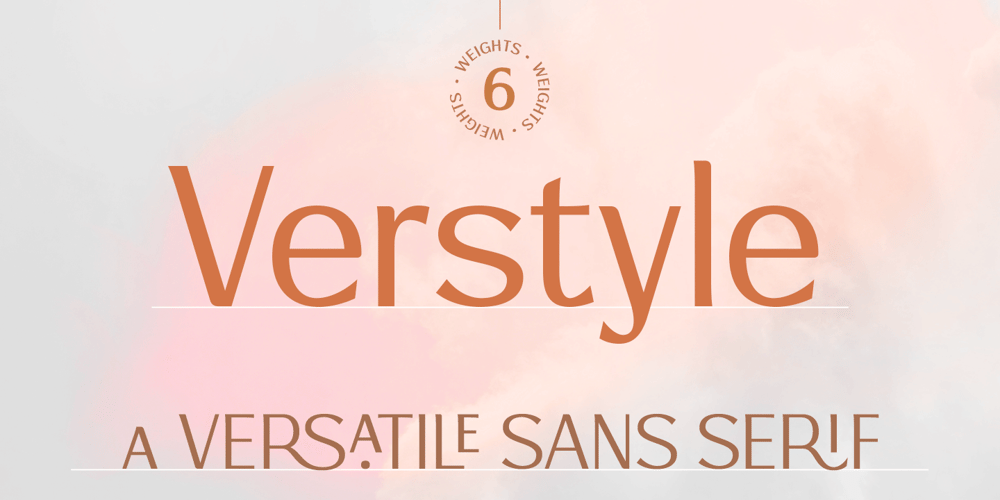
Verstyle Font Family was designed by Ayça Atalay and published by Ayca Atalay. Verstyle contains 6 styles and family package options. Verstyle is a rich & elegant sans serif, that can be both an eye-catching display typeface and a clean & legible font for smaller text. It has 6 weights to choose from, plenty of ligatures, superscript letters, small caps and alternates to create a tailored look.